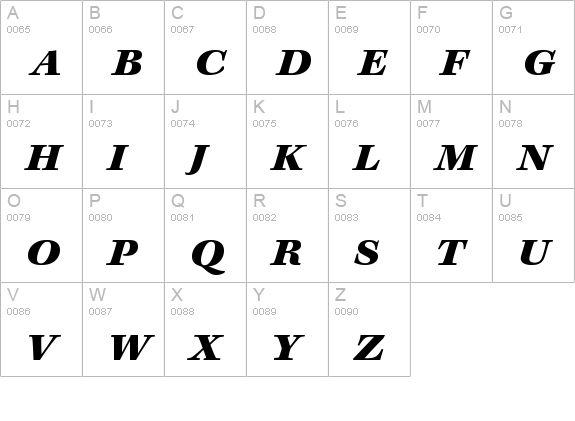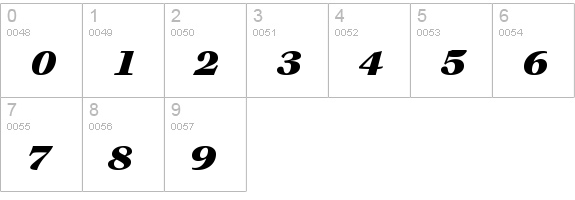
Kepler Std Black Extended Italic Caption Font Details
Kepler Std Black Extended Italic Caption is a maximum-weight, dramatic, extended-width, italic variant in the Kepler typeface family \xE2\x80\x94 well suited to maximum-impact headlines, posters, and packaging.
Kepler Std Black Extended Italic Caption font is a bold and expressive typeface that exudes elegance and sophistication. With its elongated and italicized letterforms, this font effortlessly captures attention and adds a touch of drama to any design project. Ideal for captions, headlines, and subheadings, Kepler Std Black Extended Italic Caption font boasts a strong presence and commands attention with its sleek and refined appearance. Its extended letterforms allow for a generous use of space, making it perfect for conveying important information in a visually striking manner. This font's heavy weight and italicized slant create a sense of movement and dynamism, giving your text a sense of energy and vitality. It is the perfect choice for projects that require a bold and impactful visual statement. And the best part? Kepler Std Black Extended Italic Caption font is available for free download at FontsMarket.com. That's right, you can enjoy the beauty and versatility of this font without spending a dime. So why wait? Enhance your designs with the elegance and boldness of Kepler Std Black Extended Italic Caption font today!